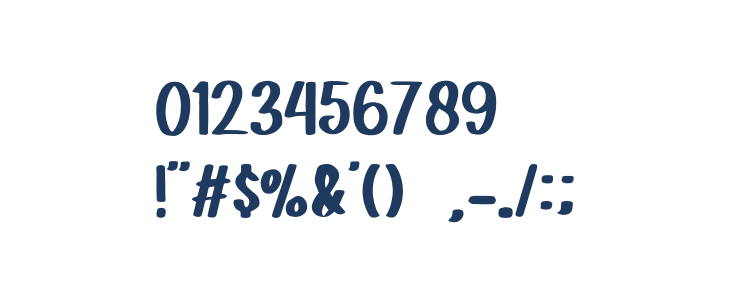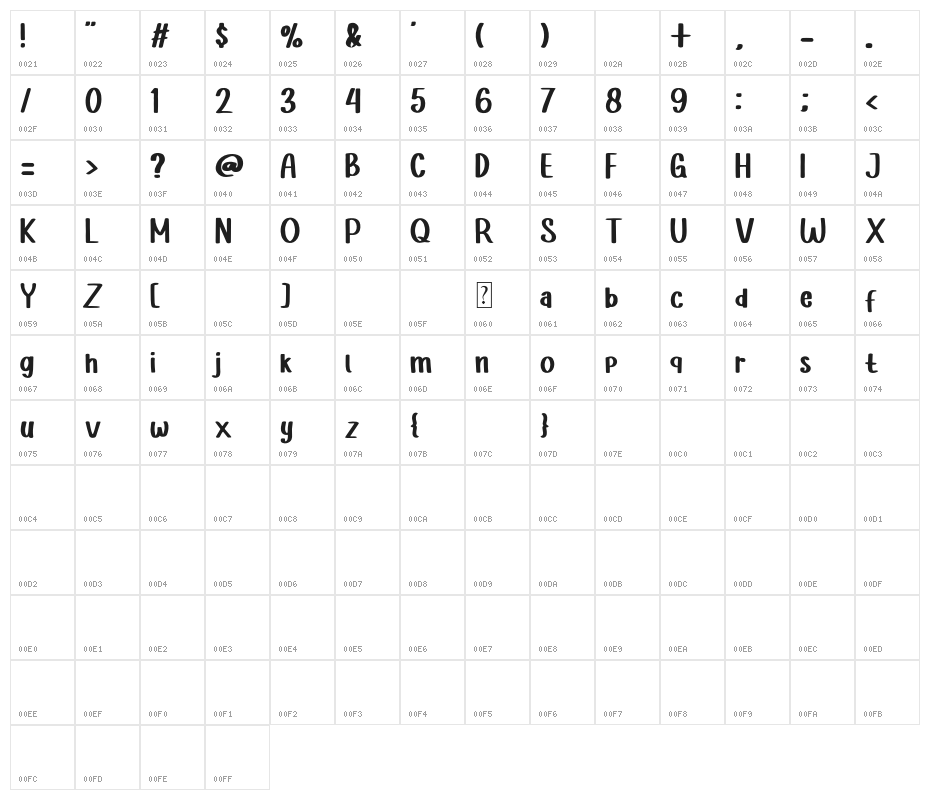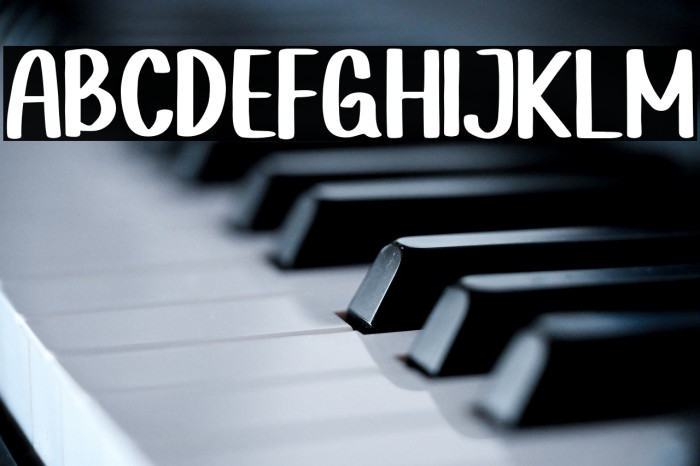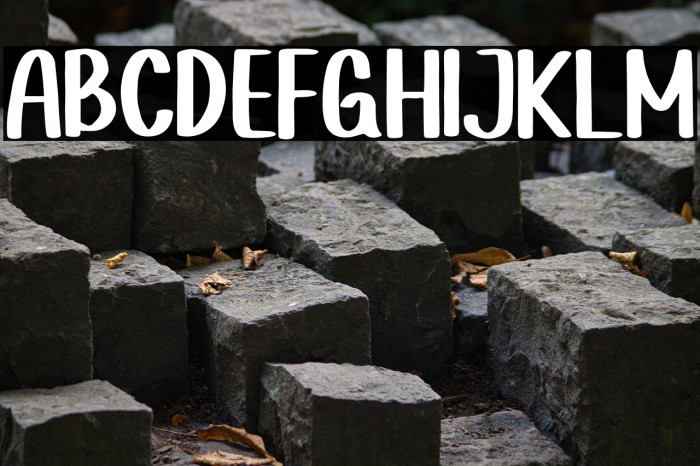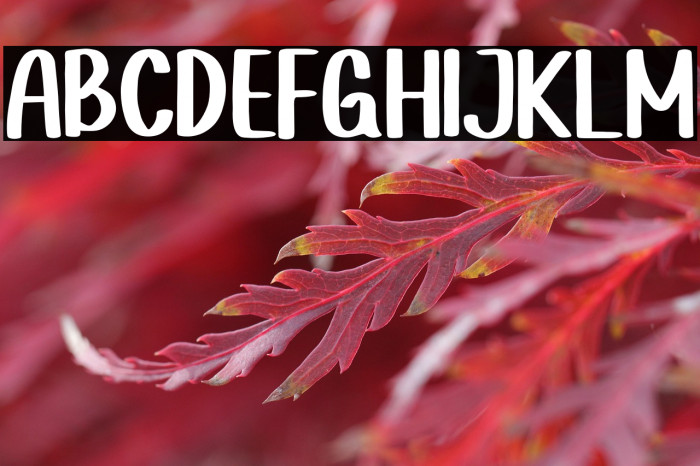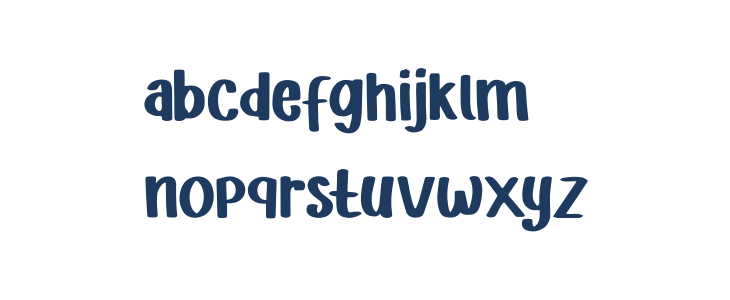
TheLima Font
TheLima Description
This font features a playful and bold style with rounded edges and a hand-drawn appearance. The uppercase letters are slightly taller and more prominent, while the lowercase letters maintain a consistent flow with a casual, friendly vibe. The numbers and special characters follow the same aesthetic, making them cohesive with the overall design. The strokes are thick, providing a strong visual impact, and the character spacing is relatively tight, enhancing the boldness. This font is ideal for projects that require a fun and approachable look.
| Overall Style | Playful, Hand-drawn |
| Proposed Projects | Great for children's books, playful branding, posters, and social media graphics. |